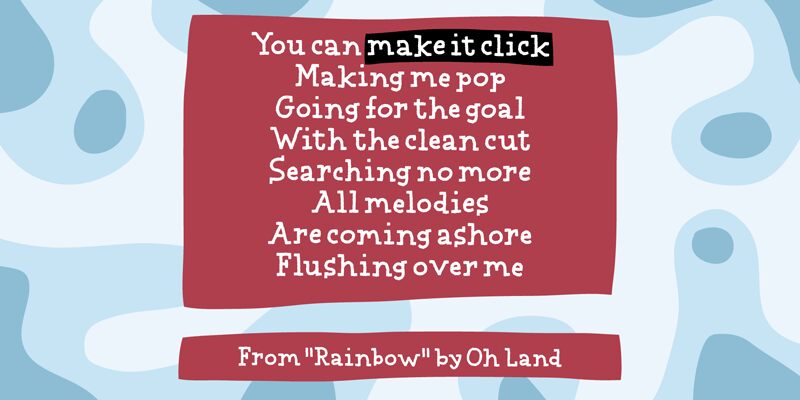
Make It Click font is a creative and playful typeface by Pizzadude, designed to bring a touch of whimsical charm to any project. This font was inspired by cartoons and reflects through its informal and casual style amateur, child-like, and relaxed vibes. Like most cartoon fonts, Make It Click comes with a lack of straight lines and plain surfaces meaning that every project it’s used in will stand out and feel built from scratch.
All that makes this font specially suitable for children in various contexts. Use it for story books, comic books, games, title sequences in TV shows, cartoons, and more. Another great use would be in toy related design and shop, candy, sweets, birthday parties, posters, and invitations.
Furthermore, a more unordinary approach would be to select it as a professional font for marketing and branding agencies since its main purpose will be to enrich internal processes to help the clients stand out.